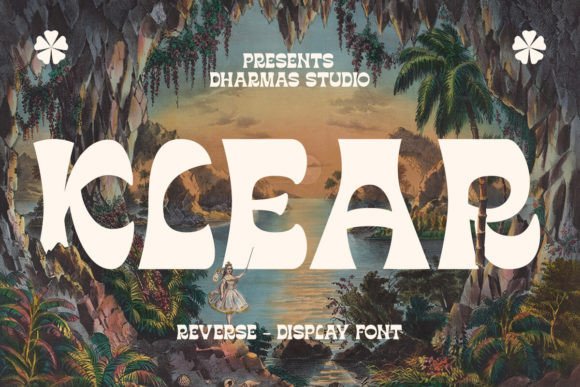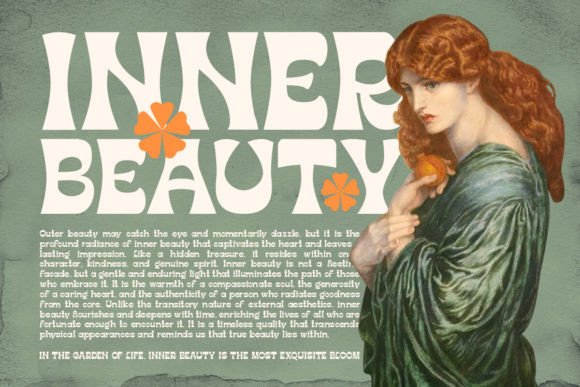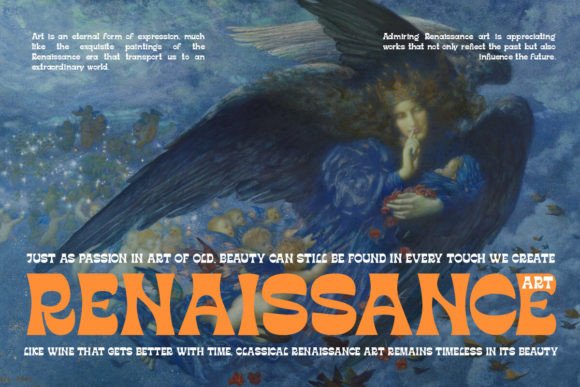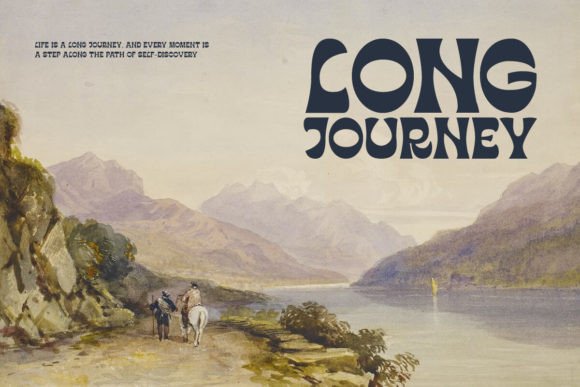
Klear Font: Art Nouveau Display Font for Unique Branding & Creative Projects
About the Klear Font
Elevate your designs with Klear Font, a font that combines sophistication with readability. Introducing Klear – A typeface that’s turning design conventions on its head! Inspired by the graceful flow of art nouveau, Klear is a perfect blend of quirkiness and elegance.
Klear’s distinctive character makes it ideal for headlines, short text blocks in branding materials, and eye-catching posters. Its elegant flourishes, however, make it less suitable for body copy or UI elements requiring high readability over extended lengths. The font’s inherent quirkiness might overwhelm smaller text sizes.
Its personality is best described as elegantly playful; a sophisticated yet approachable balance. Klear would be a strong choice for brands aiming for a vintage-inspired yet modern feel, perhaps in fashion, cosmetics, or boutique businesses.
For optimal pairings, consider pairing Klear with a clean sans-serif like Open Sans for readability in supporting text, or a geometric sans-serif like Futura for a more modern contrast. A classic serif like Garamond could also offer a compelling juxtaposition, depending on the desired mood.